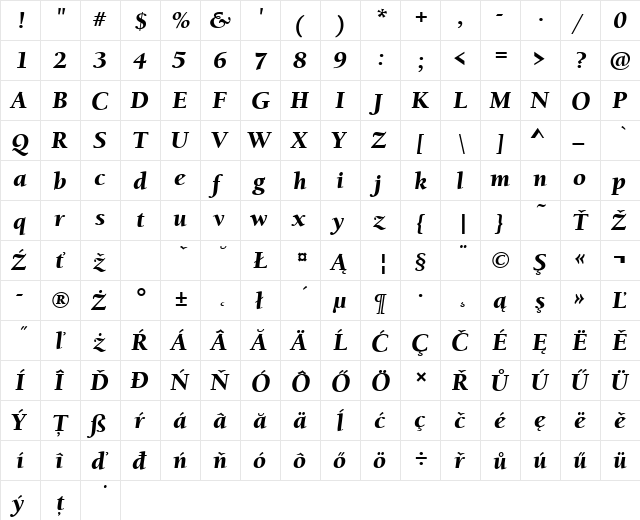
BerkeleyOldStyItcTEEBla Italic Font Preview
BerkeleyOldStyItcTEEBla Italic
BerkeleyOldStyItcTEEBla Italic Font Details
Design Context for BerkeleyOldStyItcTEEBla Typeface
BerkeleyOldStyItcTEEBla takes a measured approach to typography — its balanced proportions and neutral character make it a reliable workhorse for both digital and print work. The dynamic lean of this cut emphasises speed and emphasis in any layout.